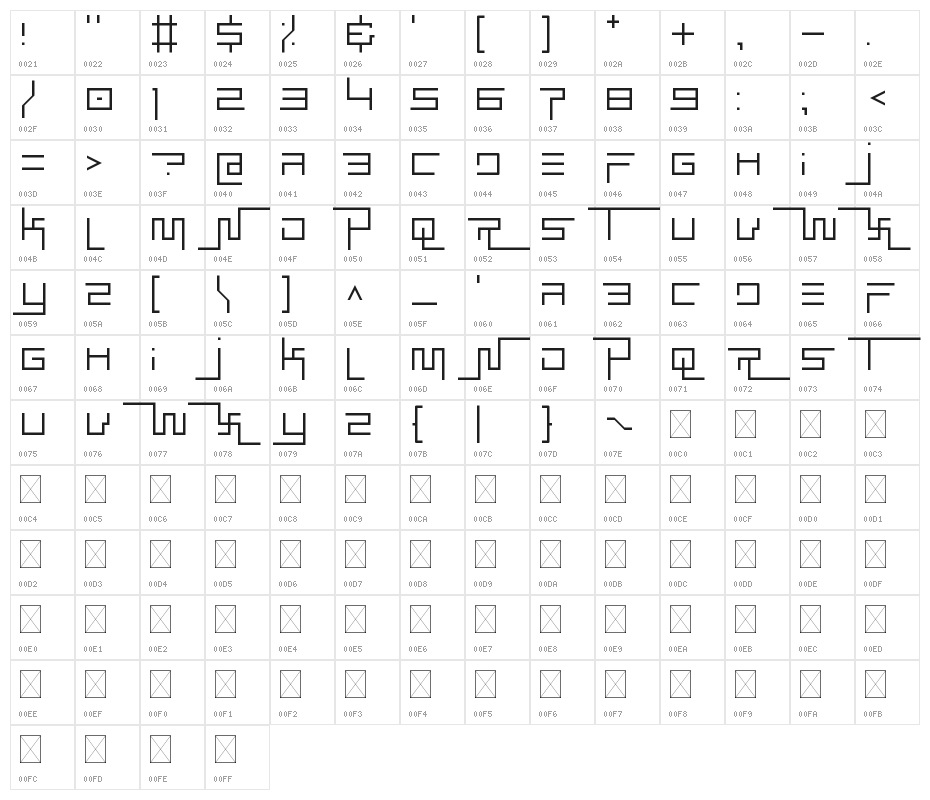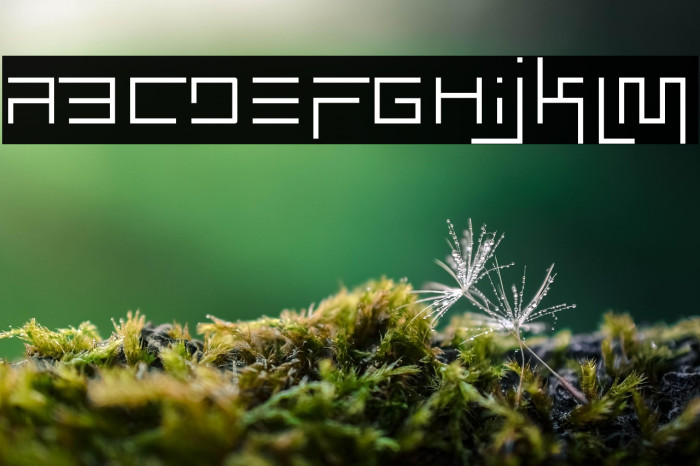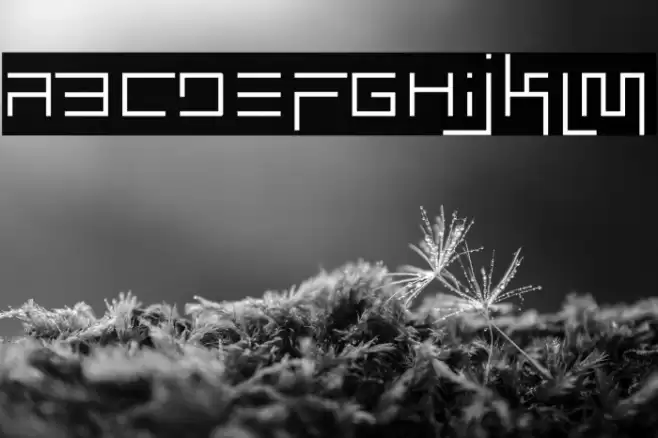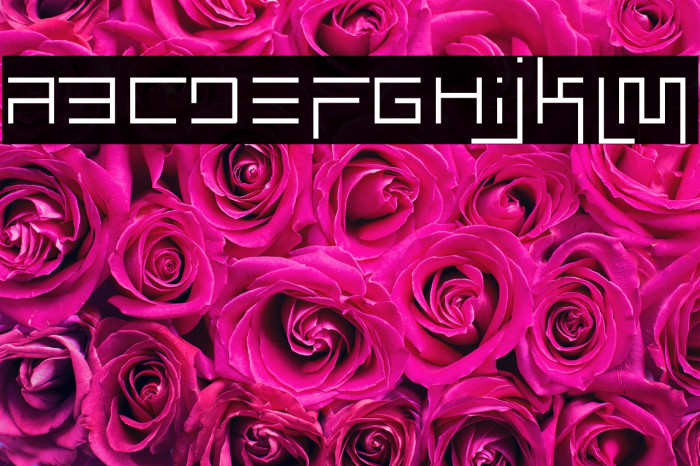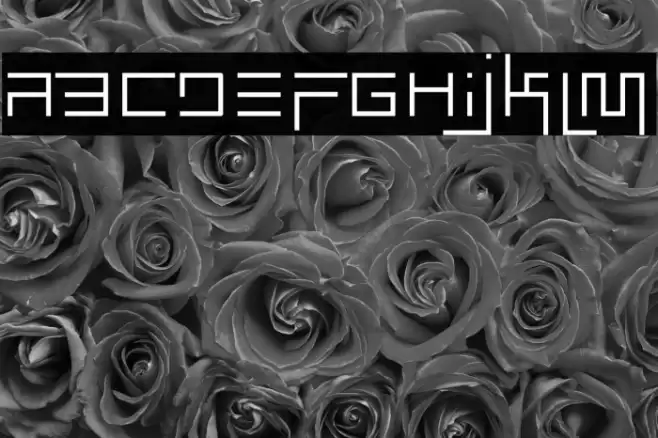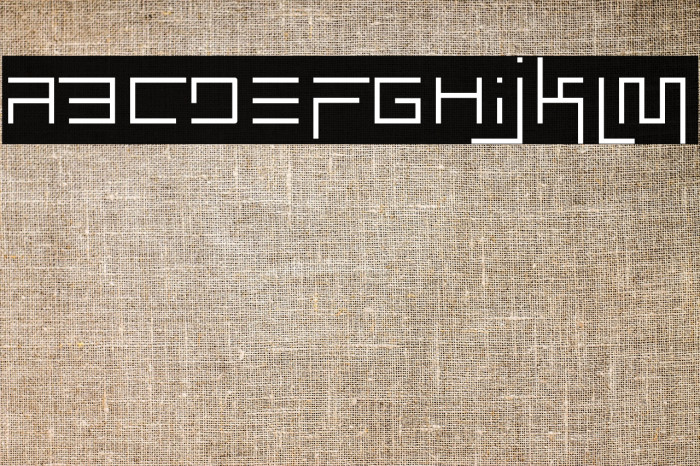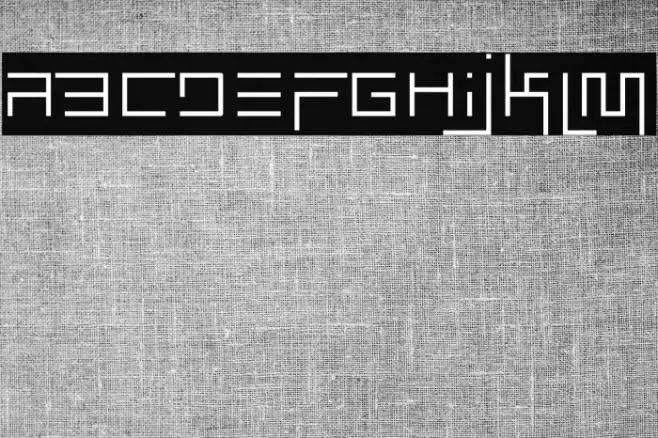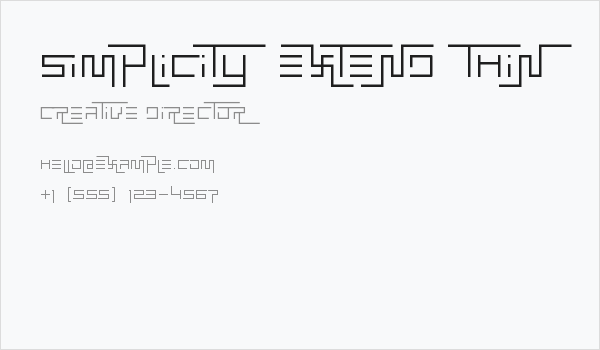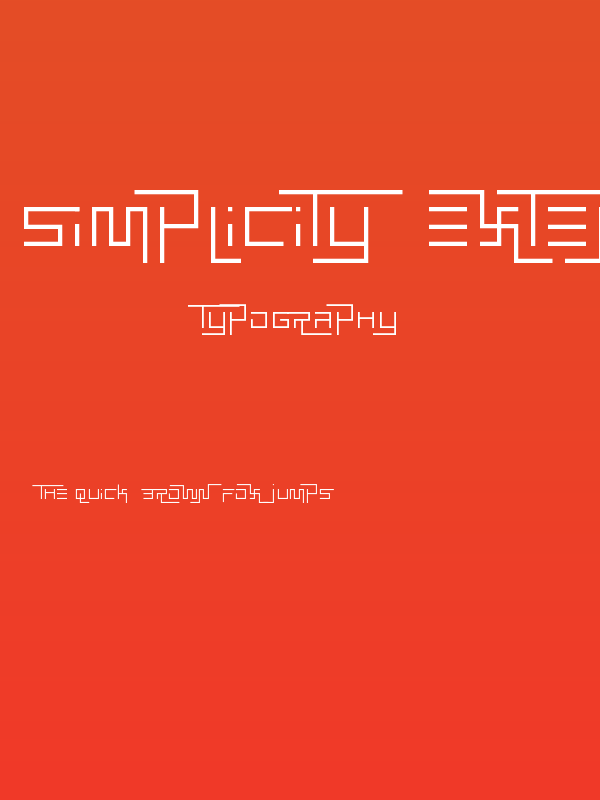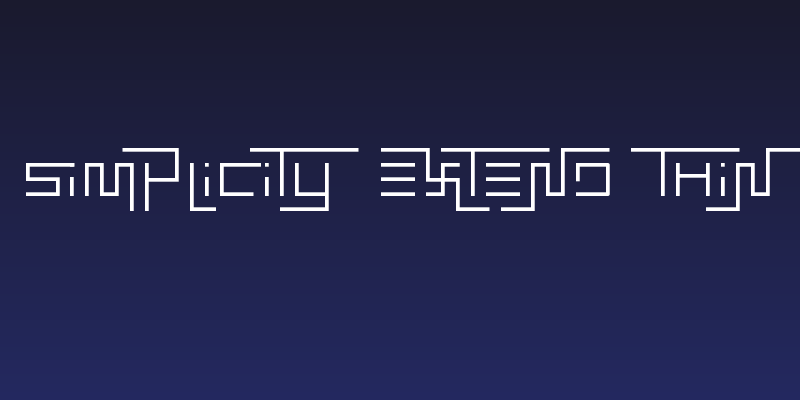
Simplicity Extend Thin Font
Simplicity Extend Thin Description
This font features a geometric and linear design, characterized by its thin, elongated strokes and sharp angles. The characters are constructed with a consistent line weight, giving it a modern and minimalist appearance. The uppercase and lowercase letters share similar structural elements, enhancing the uniformity across the typeface. The numerals and special characters maintain the same linear style, ensuring a cohesive look throughout. This font's simplicity and clarity make it suitable for digital displays and modern design projects.
| Use Case | Headlines, Logos, Digital displays |
| Proposed Projects | Ideal for digital interfaces, modern branding, tech-related designs, and minimalist posters. |